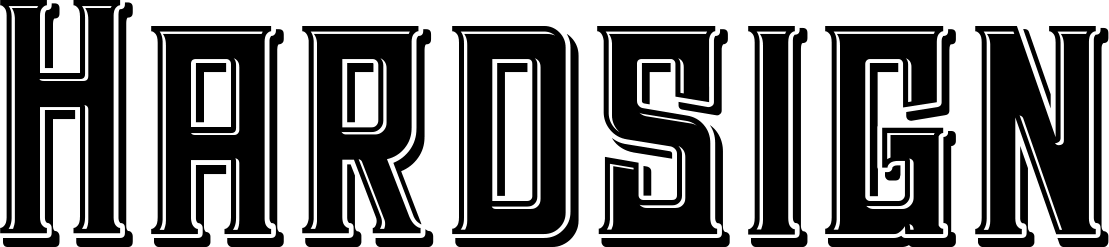
Hardsign Font
Capturing an aesthetically retro feel will block-shaped characters, Hardsign never ceases to impress the audience. This all-caps font that also includes a set of smaller alternatives for the lowercase with the same shape is perfect for trying out different combos and getting creative.
With its bordered and solid style ideal for creating a professional and experienced picture, no wonder this whisky font is so easy on the eye once applied to signage, logos, book titles, posters, and so on.